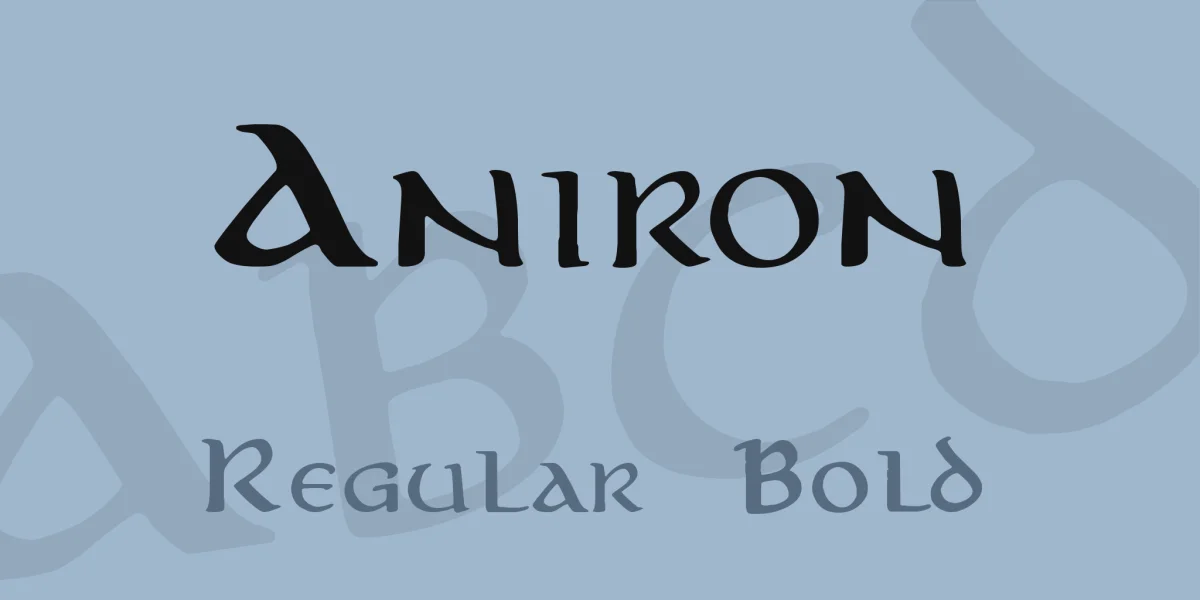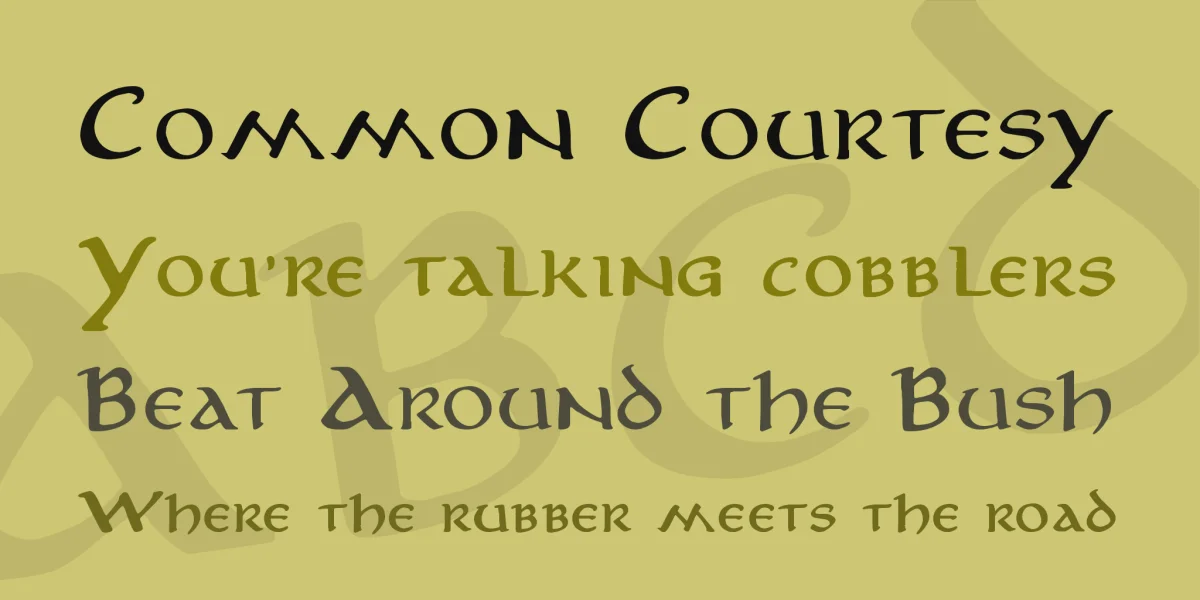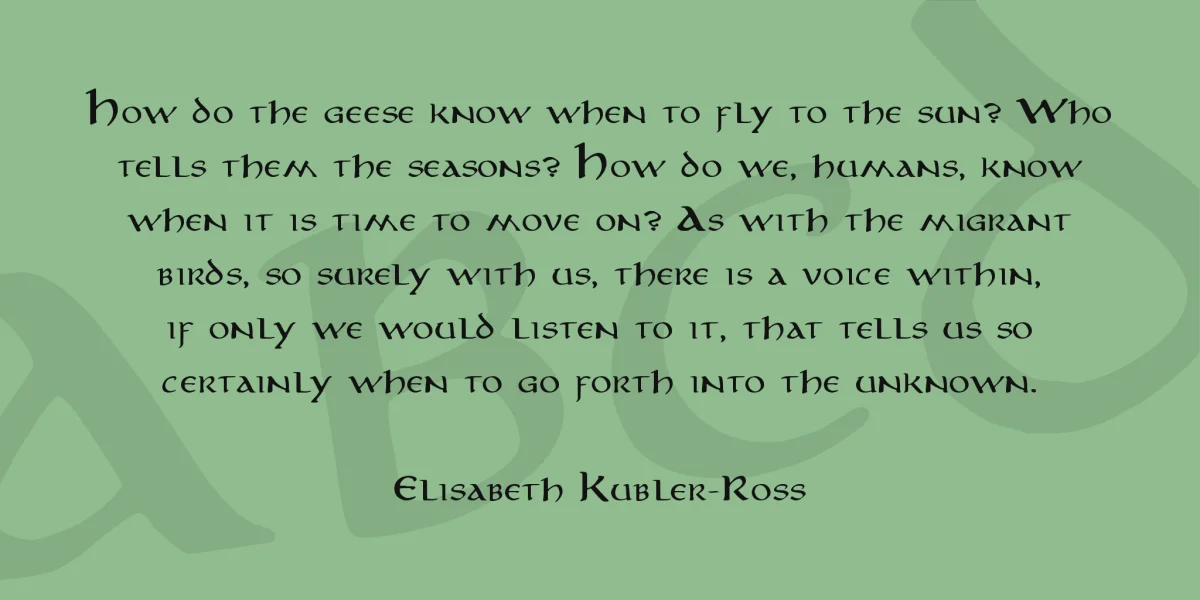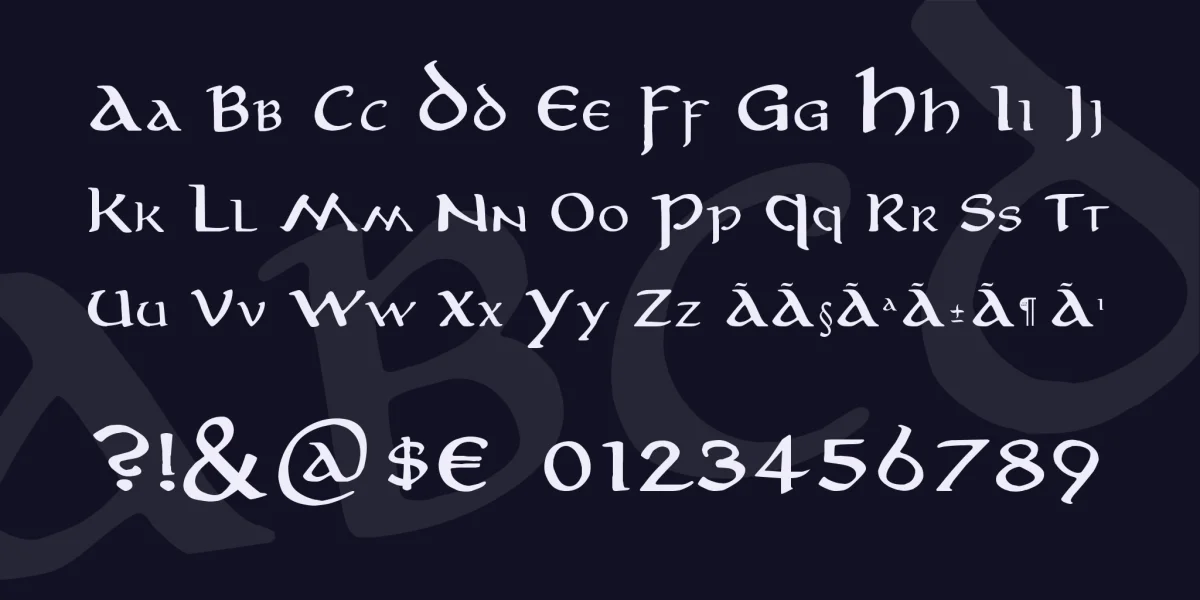
This is a font used in the end credits in "The Lord of the Rings". The font contains Latin characters, Western accent characters and Cyrillic characters.